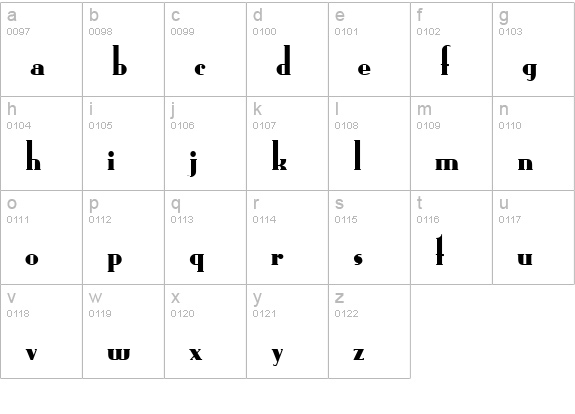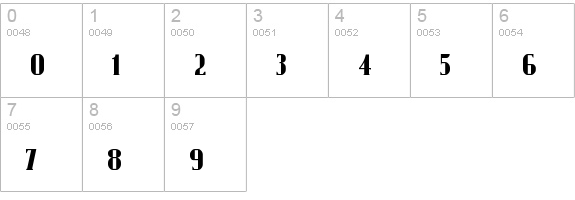
Rundfunk font is a versatile and elegant typeface that exudes a timeless charm. With its clean lines and modern aesthetic, this font is perfect for a wide range of design projects, from branding to editorial design. The sleek, geometric shapes of Rundfunk font make it a standout choice for those seeking a contemporary look with a classic twist. What sets Rundfunk font apart is not only its stylish design, but also the fact that it is available for free download at FontsMarket.com. This means that you can add this stunning font to your collection without any cost, making it a valuable resource for designers and creatives looking to elevate their work. Don't miss out on the opportunity to enhance your projects with the sophisticated charm of Rundfunk font - download it for free today!